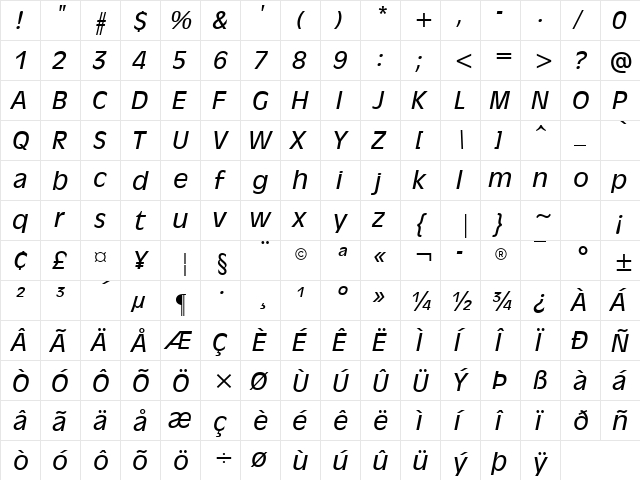
Pistachio-Italic Regular
Design Context for Pistachio-Italic Typeface
Pistachio-Italic is a composed and adaptable typeface that performs quietly and consistently across a wide range of design contexts. Its italic angle brings a sense of urgency and motion to the letterforms.
Pro Tip: Try Pistachio-Italic for annotation and caption copy alongside an upright companion — the contrast in angle creates a dynamic but ordered typographic system.